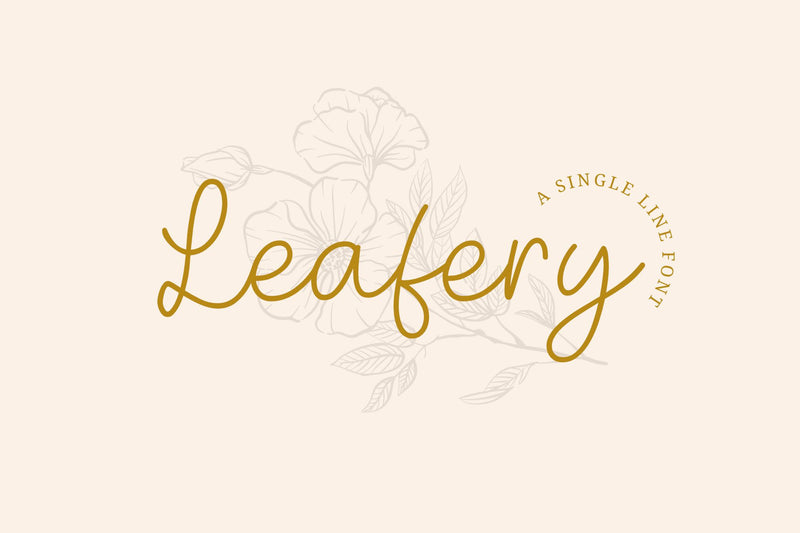
Leafery - a Single Line Font
Leafery is a sweet handwritten font that is made with great care in order to produce the expected outcomes. This font can be used for writing various kinds of products according to their respective needs.